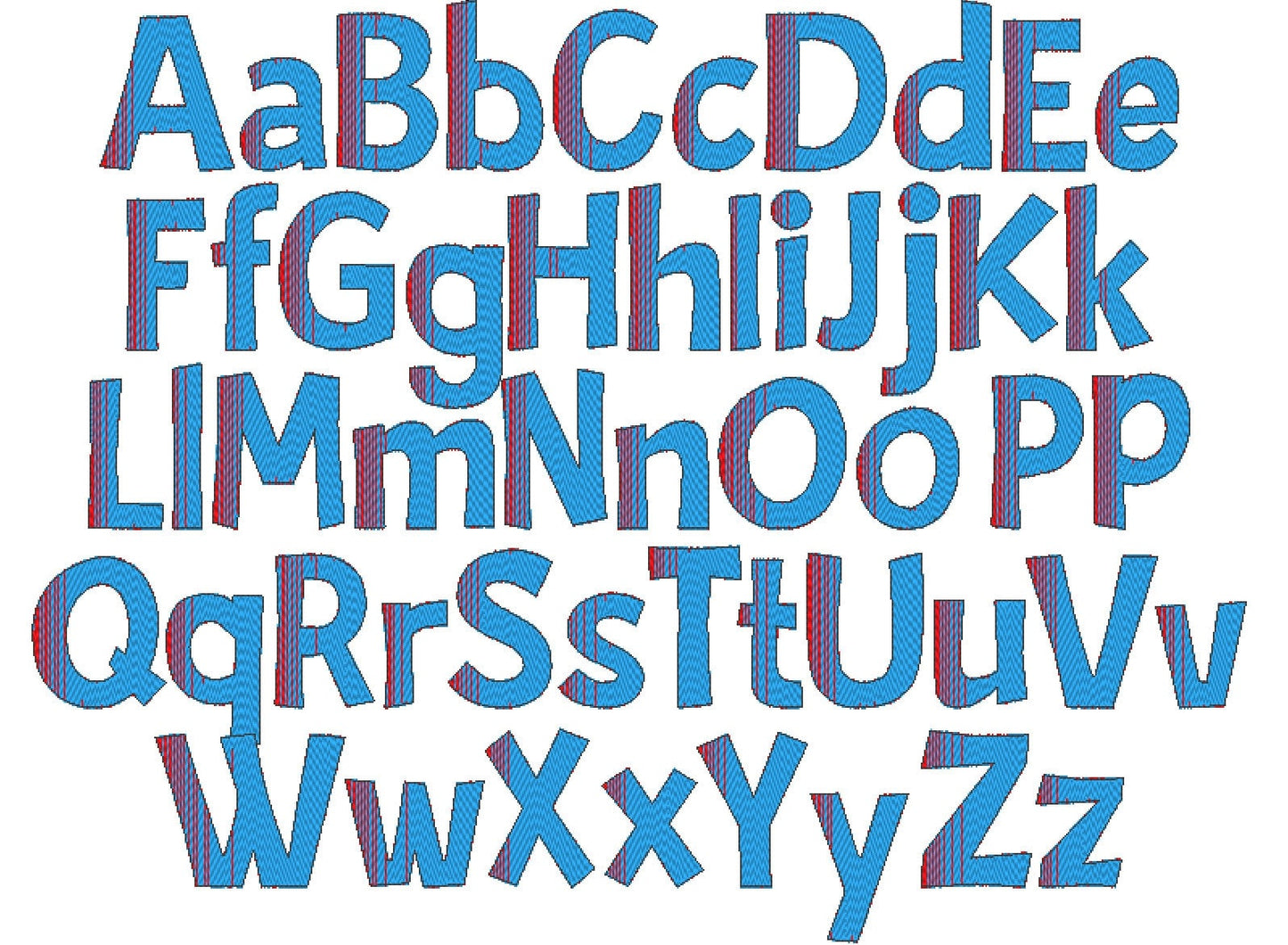
Or click to open the linkLucia, an iridescent font stitched with two ordinary thread colors that blend into a rainbow gradient. No special thread needed. Lovely for names, monograms and sayings.
Uppercase and lowercase letters in six sizes: 1.2, 1.4, 1.7, 2, 2.3 and 2.6 inches. One side of each letter is stitched mostly in one color and the other side in the second, so it shimmers all by itself.